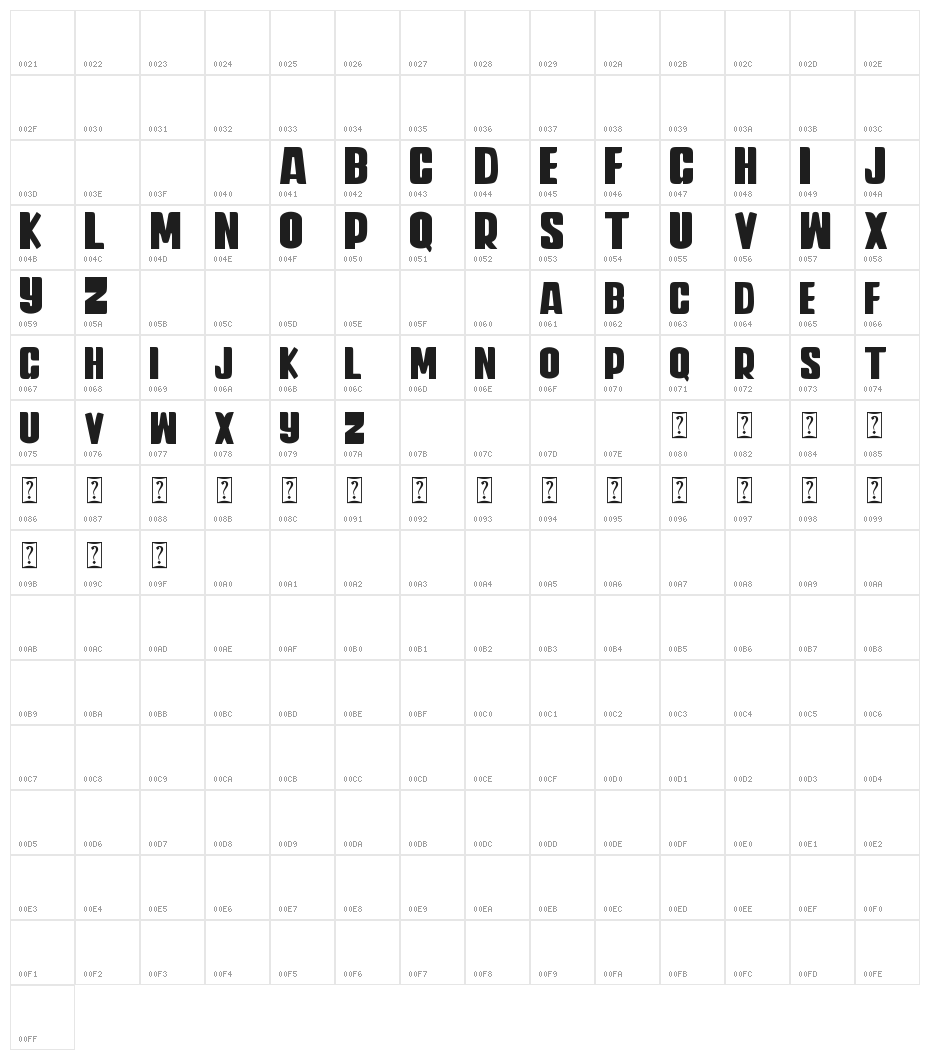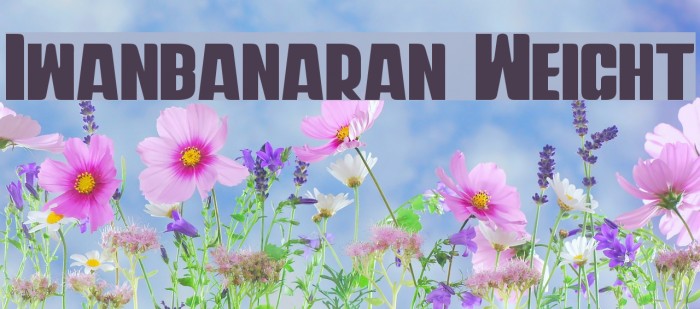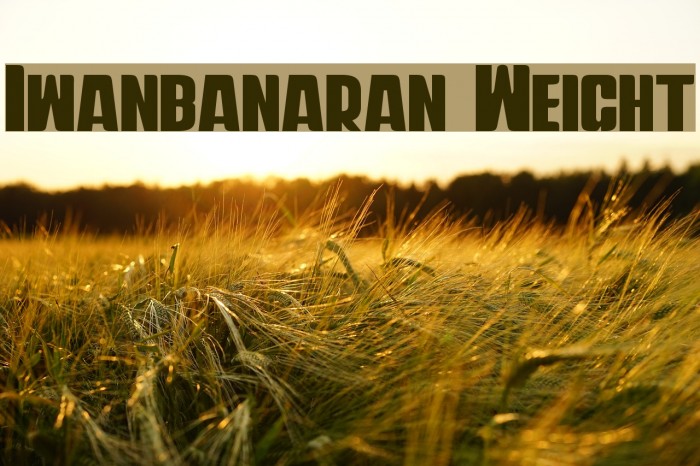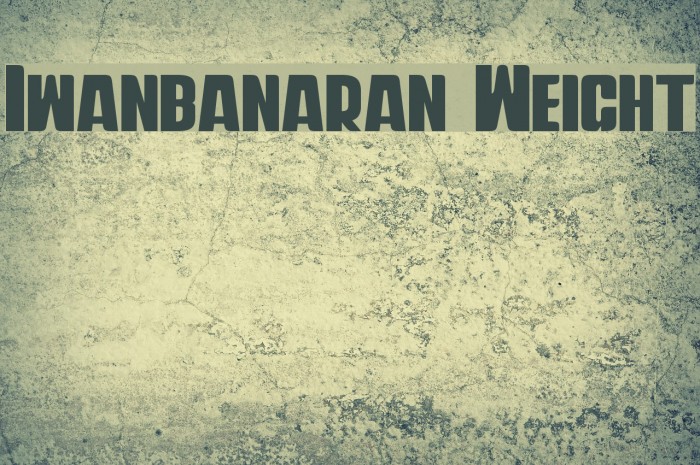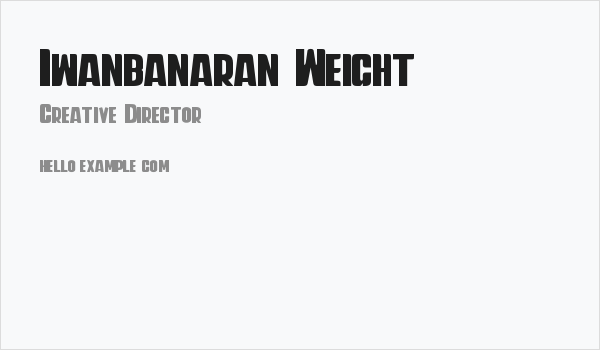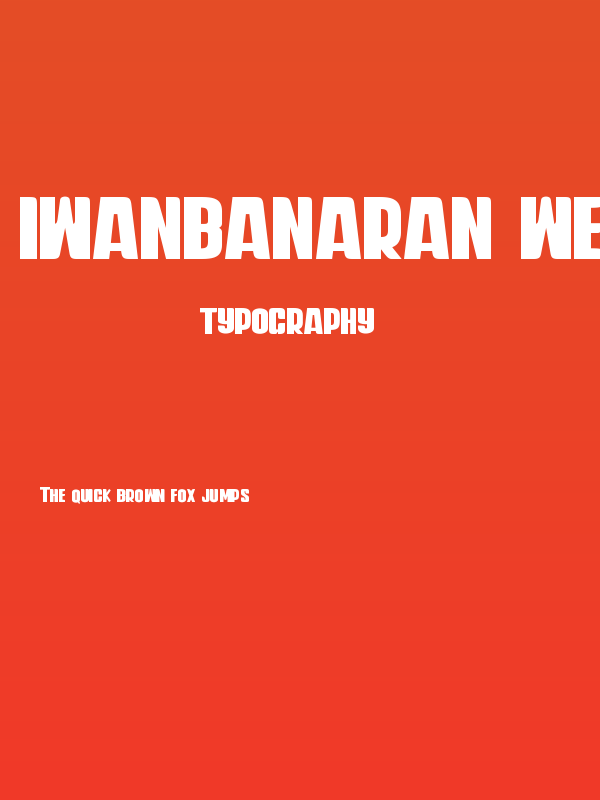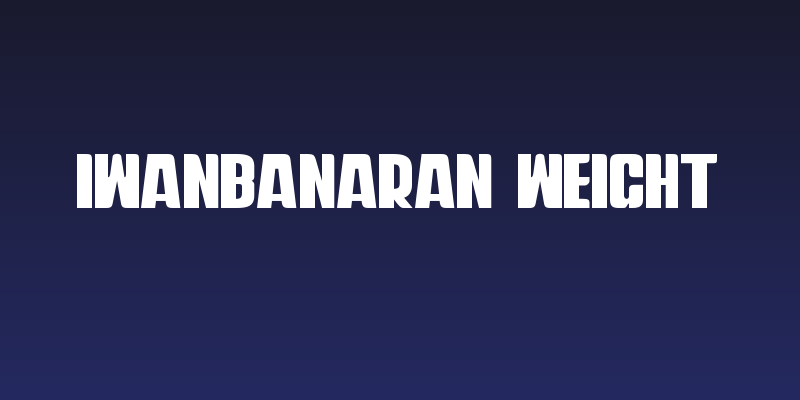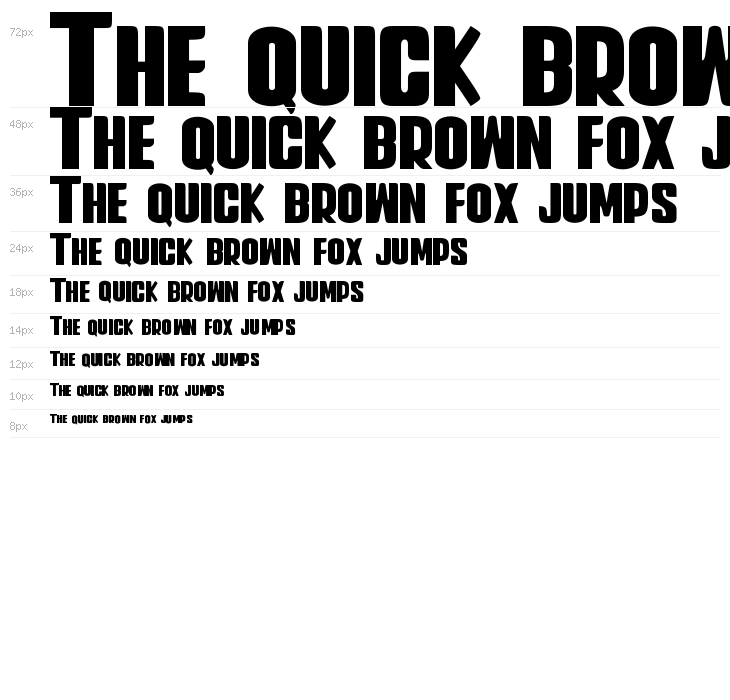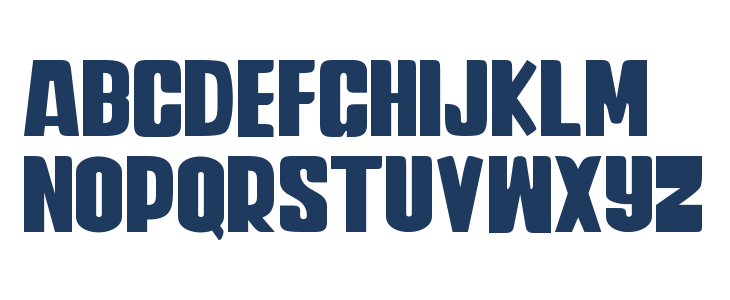
Iwanbanaran Weight Font
Iwanbanaran Weight Description
This font exhibits a bold and impactful design, characterized by thick, uniform strokes that convey strength and assertiveness. The characters are tightly spaced, enhancing the compact and robust appearance. The uppercase letters dominate with their solid, block-like structure, while the lowercase letters maintain a consistent weight, ensuring readability and balance. The font's geometric shapes and clean lines contribute to its modern and professional look, making it suitable for various design applications. Its boldness and clarity make it ideal for capturing attention and conveying messages with authority.
| Proposed Projects | Ideal for branding, headlines, posters, and signage where a strong visual impact is desired. |